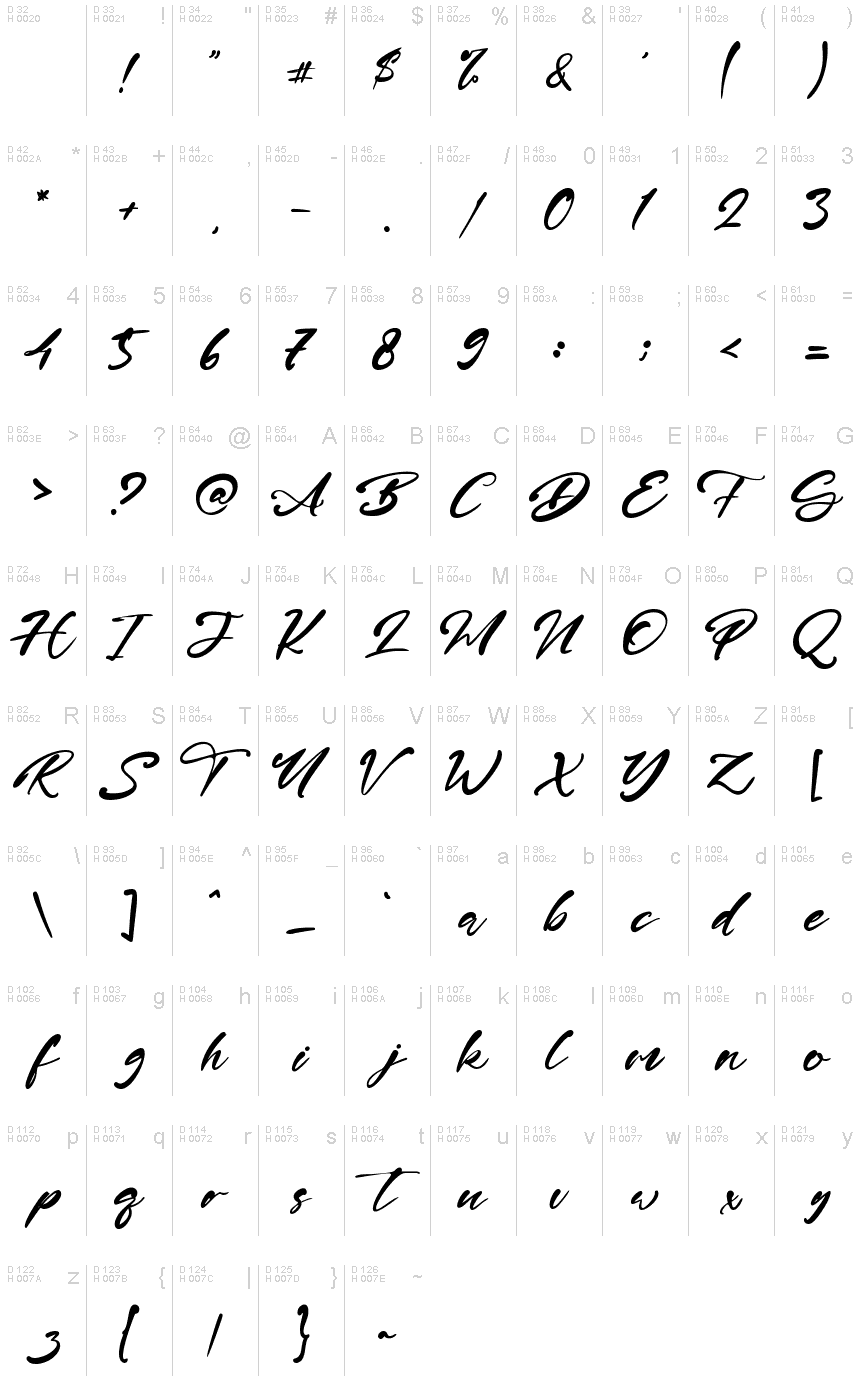
Mario Emma
Mario Emma is a modern script font designed by Kong Font. It has a stylish, elegant and graceful look that makes it perfect for projects such as greeting cards, logo designs, wedding invitations and documents. Its smooth curves and beautiful letterforms give any project an effortless sophistication. Mario Emma is sure to add the perfect touch of class to any design.